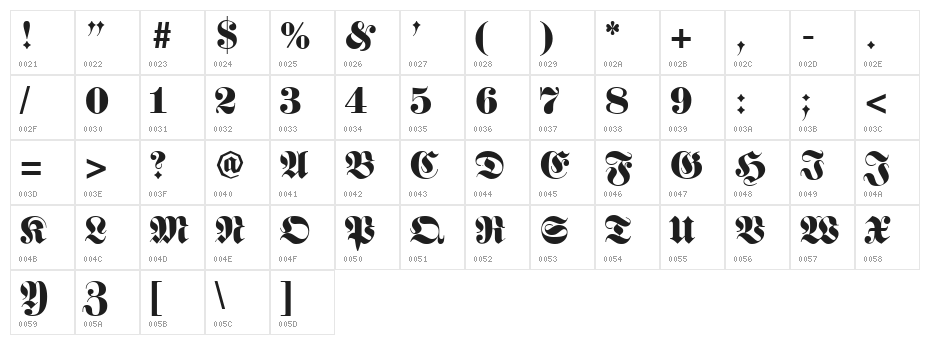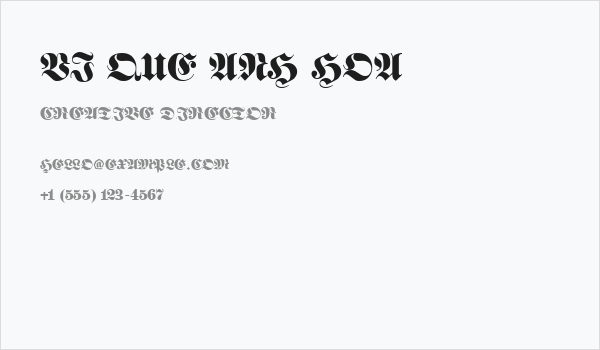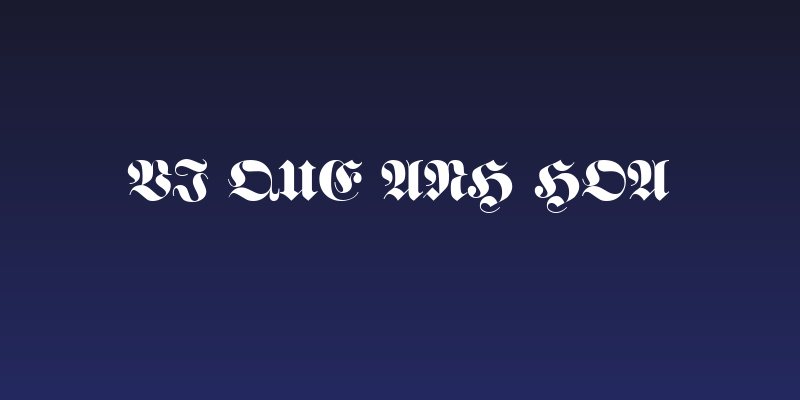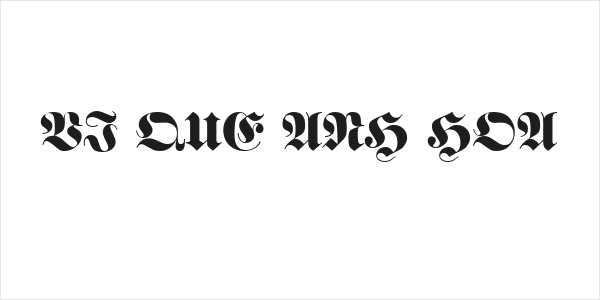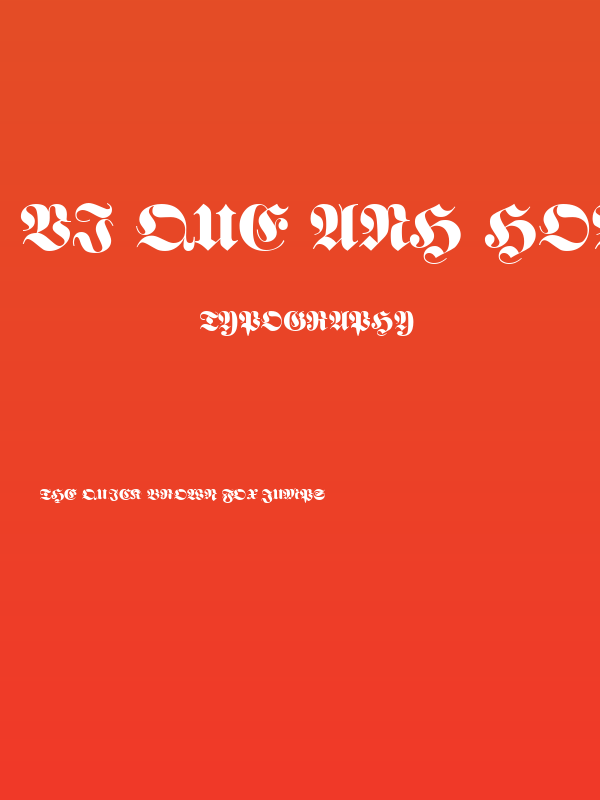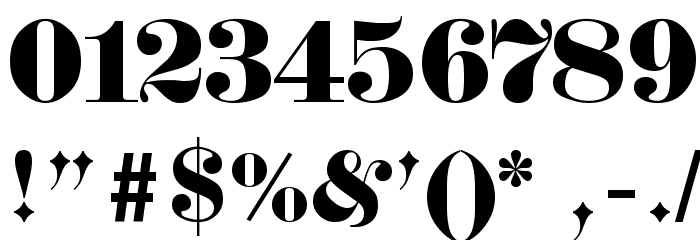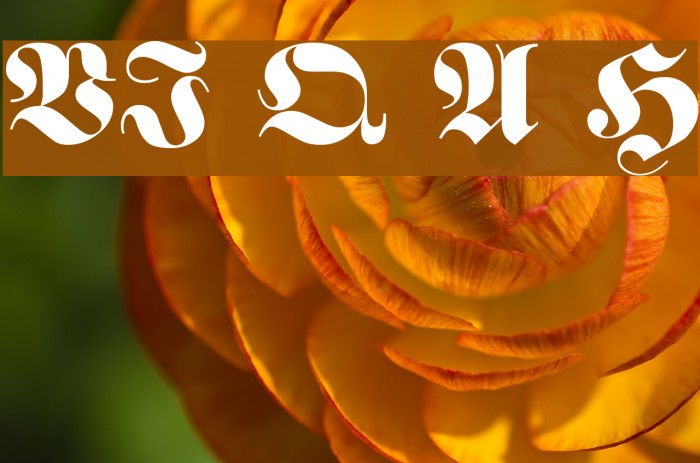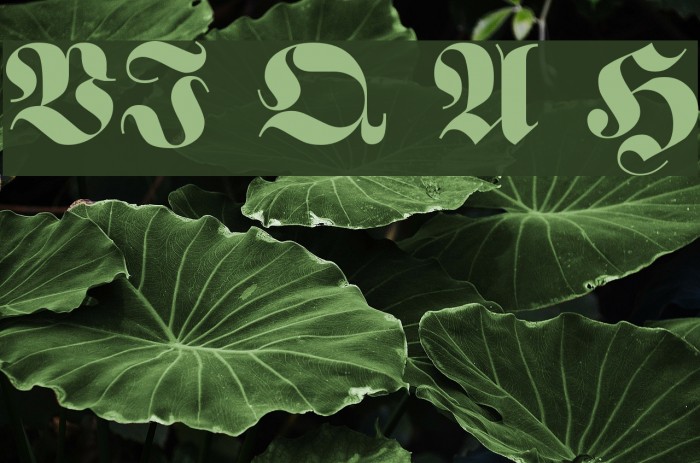
VI Que Anh Hoa Font
VI Que Anh Hoa Description
This font features a bold and intricate design, reminiscent of traditional blackletter styles. The characters are ornate, with sharp angles and elaborate flourishes that give it a dramatic and historical appearance. The uppercase and lowercase letters maintain a consistent style, with the lowercase being slightly more condensed. Numbers are equally bold and decorative, fitting seamlessly with the overall aesthetic. Special characters are designed with the same attention to detail, ensuring a cohesive look across all glyphs. This font is ideal for projects that require a touch of elegance and a nod to historical typography.
| Overall Style | Vintage |
| Use Case | Logos, Headlines, Decorative text |
| Proposed Projects | Suitable for vintage-themed designs, book covers, posters, and branding that requires a historical or gothic touch. |